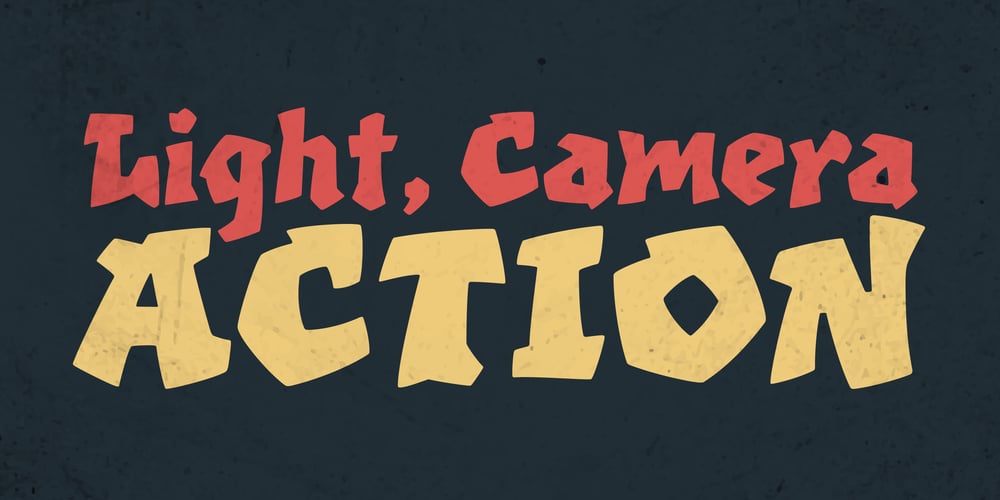
Machete Pro Font Family was designed by Alejandro Paul, Angel Koziupa and published by Sudtipos. Machete Pro contains 1 styles and family package options. Machete is the hulky, overfed distant cousin of Bayoneta. Enthusiastically in your face and full of humour, Machete is exactly the kind of big alphabet that takes a skinny actress camping at the top of a really tall building downtown. If you don’t think this sort of date is interesting enough, try cramming these letters on your next tub of comfort food, road trip comedy, or assault rifle packaging and see. Machete don’t text. Machete roars!